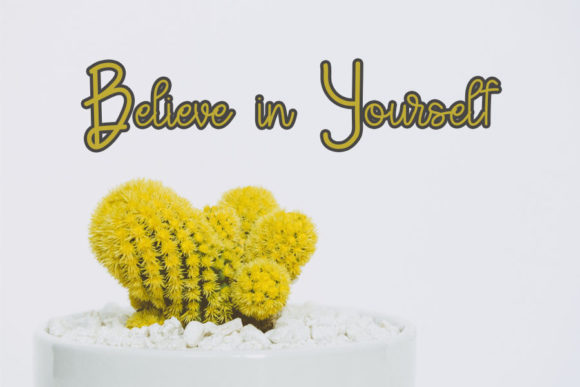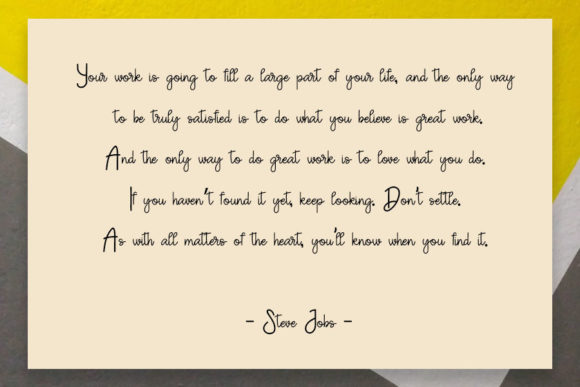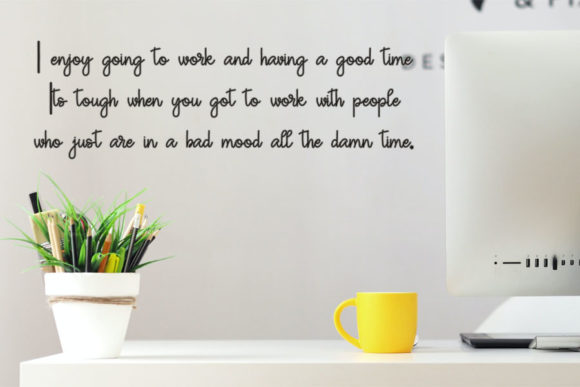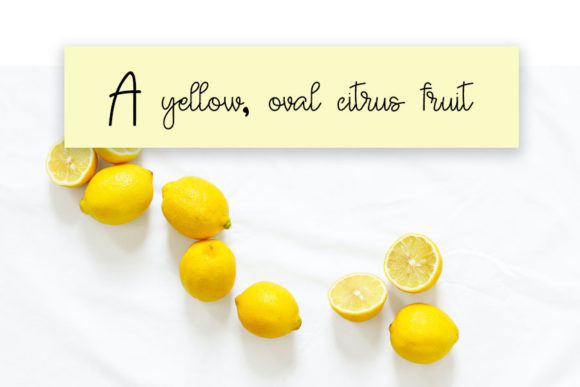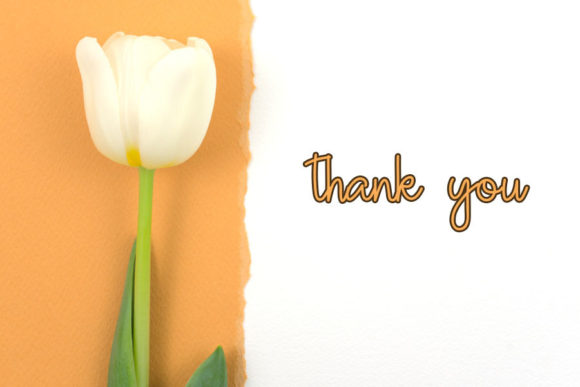
Introduction to Paper Flowers Font
Have you ever been working on a creative project and stumbled upon the perfect design element that elevates your entire concept? For designers, finding that one special resource can be a game-changer. I still remember the moment I discovered the Paper Flowers Font – its unique, handwritten style instantly captured my attention and left me wanting more.
As a valuable addition to any design arsenal, the Paper Flowers Font offers a level of versatility that’s hard to resist. With its thin, well-rounded letters, this font is perfect for creating stunning designs that exude elegance and sophistication. Whether you’re working on a project with a transparent background or need a high-quality font for a special occasion, the Paper Flowers Font is an excellent choice.
Key Features of Paper Flowers Font
- Perfect for designers looking for a unique and delicate touch
- Unique, hand-drawn style makes it a standout design element
Honest Review: Paper Flowers Font
One of the standout features of the Paper Flowers Font is its high quality and intricate details. The font features delicate, hand-drawn elements that add a touch of elegance to any design. I particularly love the transparent background option, which allows for seamless integration into any creative project.
- ✨ High-quality design with intricate details
- ✨ Transparent background option for seamless integration
- ⚠️ Limited font styles and variations
- ⚠️ May not be suitable for projects requiring a bold, sans-serif font
Overall, I’m impressed with the Paper Flowers Font and would definitely recommend it to designers looking for a unique and high-quality font for their creative project. Just be aware of the limitations and use it accordingly.
How to Use Paper Flowers Font
To get the most out of the Paper Flowers Font, try experimenting with different font sizes, colors, and combinations. You can also use the font as a design element, such as a border or a background, to add texture and interest to your project.
The Paper Flowers Font is perfect for various creative projects, including:
- Wedding invitations and decorations
- Party invitations and banners
- Photography and art projects